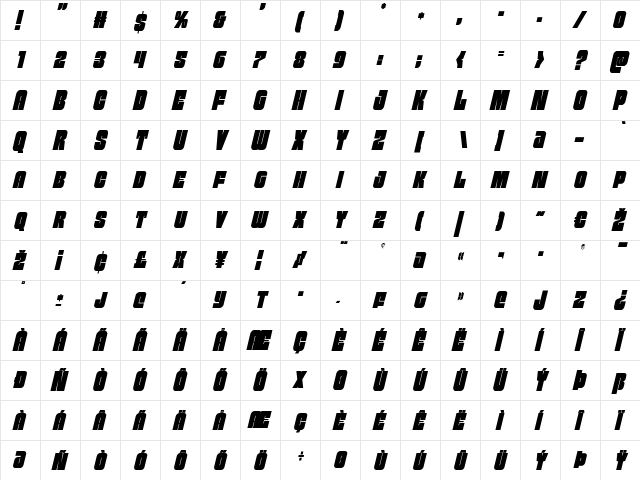
Funk Machine Condensed Italic Font Preview
Design Context for Funk Machine Condensed Italic Typeface
Funk Machine Condensed Italic has an approachable, lighthearted character — its loose, expressive forms are well-suited to children's content, casual branding, and fun-first design. Its italic angle brings a sense of urgency and motion to the letterforms.
Font Pairing: Pairs well with a rounded or humanist sans for body copy, maintaining the friendly tone without relying on Funk Machine Condensed Italic to carry extended reading.
Pro Tip: Use Funk Machine Condensed Italic at larger display sizes where its expressive character can land. Pair with a clean, simple sans for body copy to maintain readability.